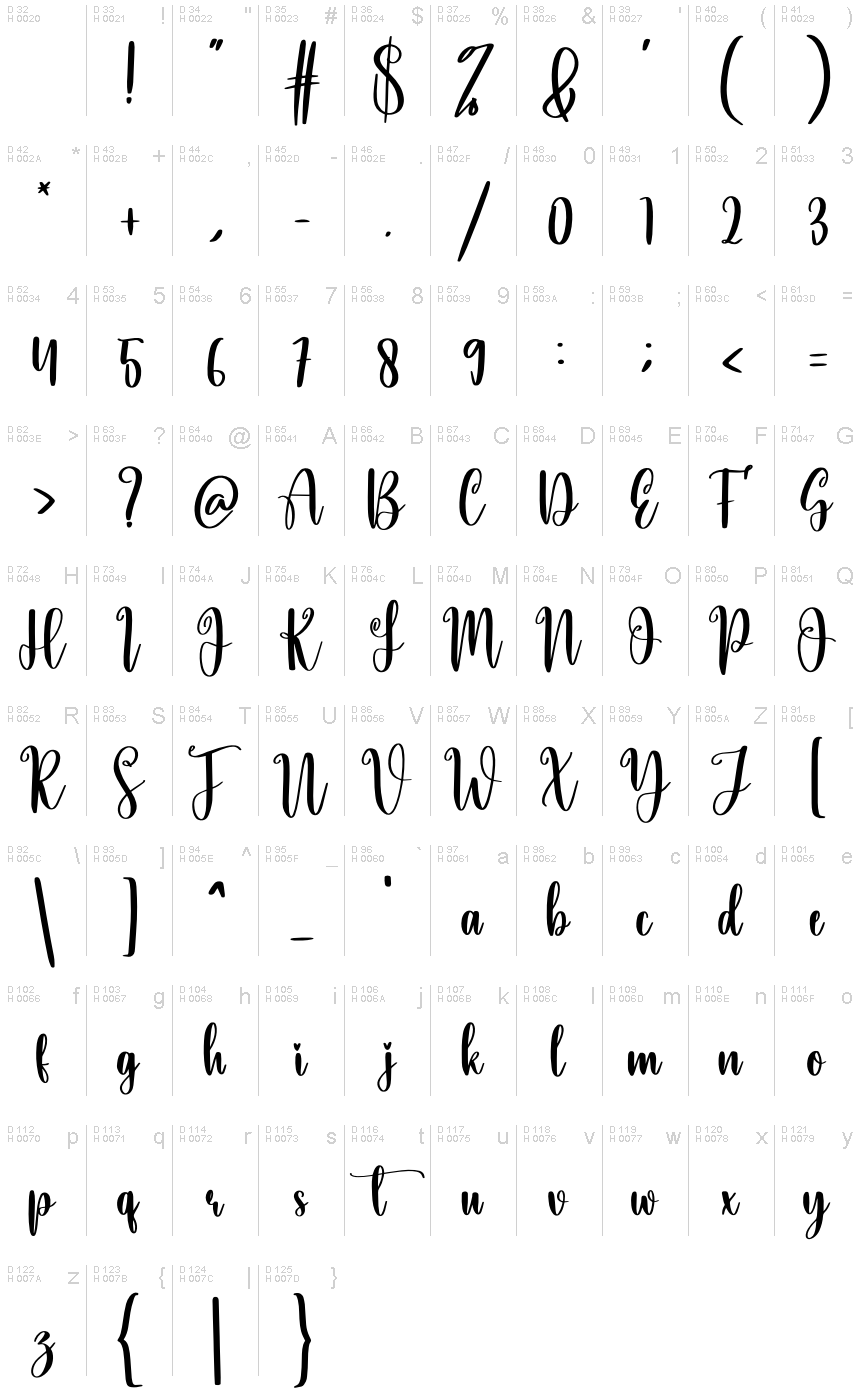
Eyelash
Eyelash, a captivating handwritten font crafted by Scratchones, exudes a graceful and elegant aesthetic. Its condensed width adds a refined touch, while the beautifully flowing strokes evoke a sense of effortless sophistication. The font's alluring curves and organic flourishes create a captivating visual narrative, making it a versatile choice for a wide range of design projects.
Eyelash by Scratchones seamlessly blends the charm of handwritten expression with a modern, sophisticated flair. Its condensed form and intricate details lend themselves well to branding, packaging, and editorial design, elevating the visual impact of any project. Whether crafting captivating wedding invitations, designing chic product labels, or adding a touch of elegant refinement to editorial layouts, Eyelash by Scratchones is a font that truly shines.